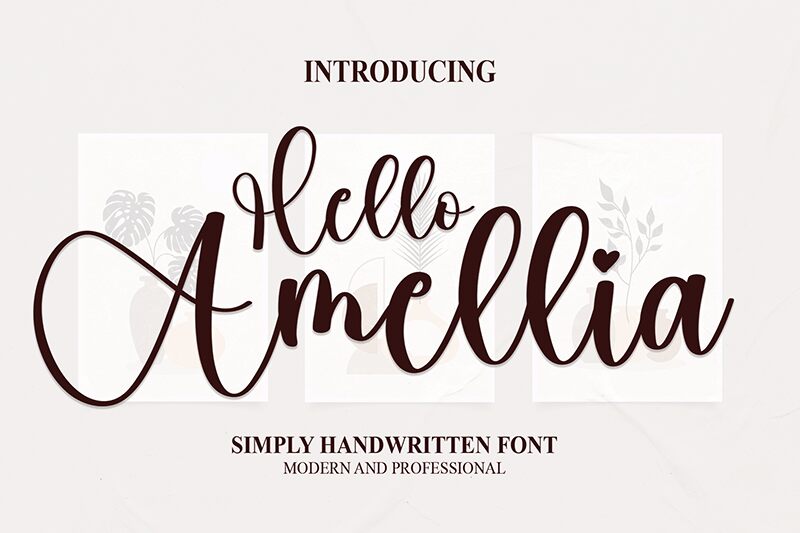
Hello Amellia
Hello Amellia is a stunning calligraphy font designed by scratchones. Its semi-light weight adds a subtle elegance to any project, making it perfect for wedding invitations, branding materials, and social media graphics. This font's unique style and beautiful flourishes add a touch of sophistication to any design. Whether you're creating a romantic greeting card or designing an eye-catching logo, Hello Amellia is the perfect semi-light font for all your creative projects. Its graceful curves and flowing lines are sure to impress and elevate your designs to the next level.
the latest style letters are perfect for wall displays, wedding invitations, social media post logos, advertisements, product packaging, product designs, labels, photography, watermarks, invitations, stationery, and any project that requires taste handwriting.